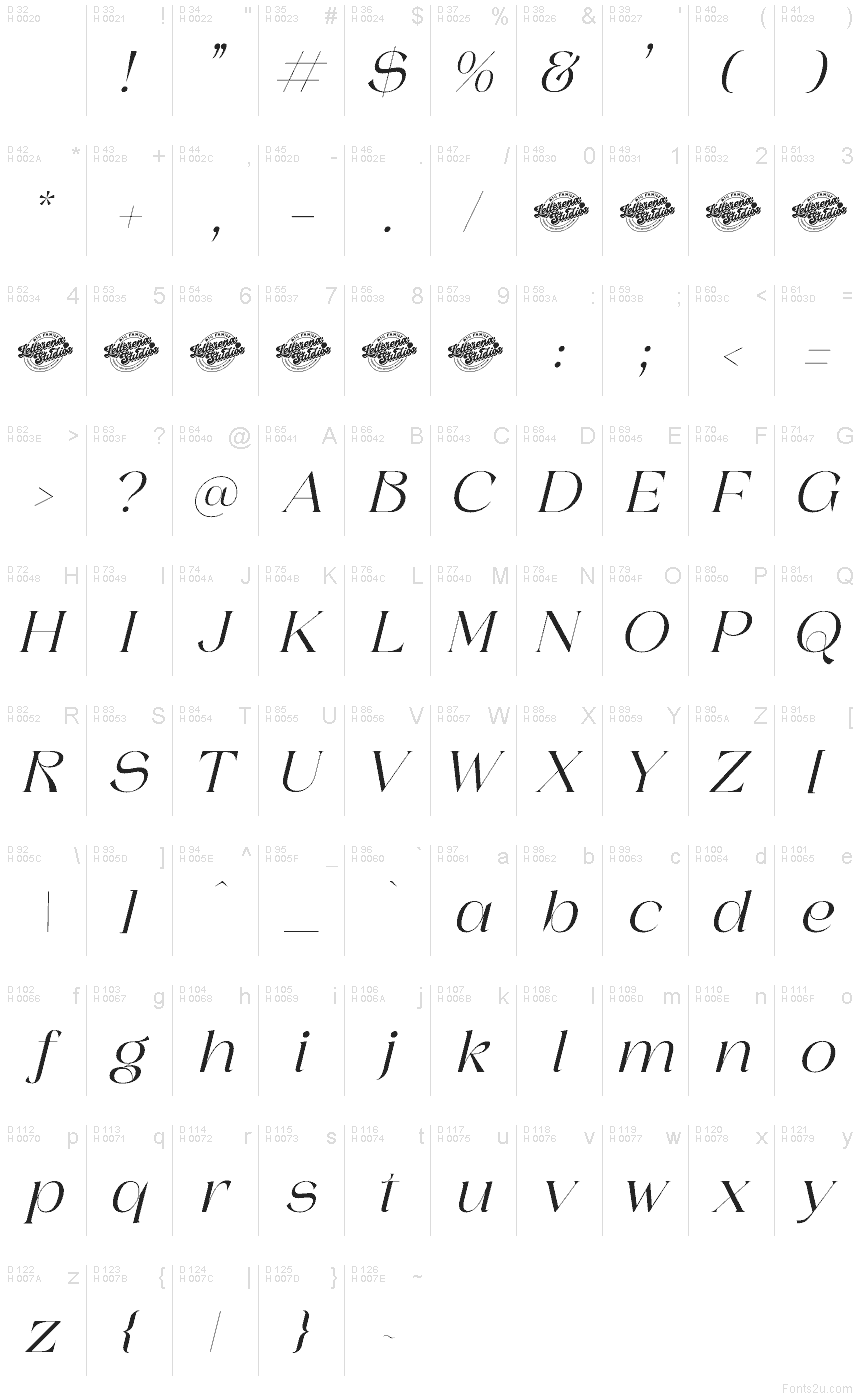
Sagite DEMO VERSION Italic
Sagite Italic font by Letterena Studios is a free elegant italic serif typeface with a striking, calligraphic sweep. Letters tilt forward with a graceful urgency, combining inky, full-bodied curves with razor-fine strokes that feel almost brushed onto the page. The rhythm of Sagite Italic is fluid and theatrical, turning even short words into something that looks styled and intentional.
Using Sagite Italic, titles and names instantly gain a couture, editorial presence. This free font shines on fashion branding, perfume or wine labels, magazine covers, wedding invitations, social media quotes, and luxury packaging. It works beautifully as a logo wordmark, especially when paired with a clean geometric sans in smaller supporting text to keep the drama focused where it belongs.